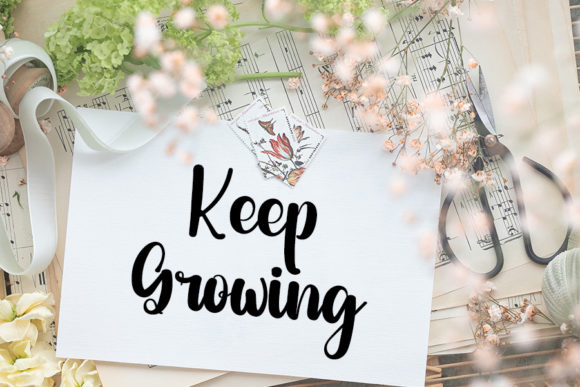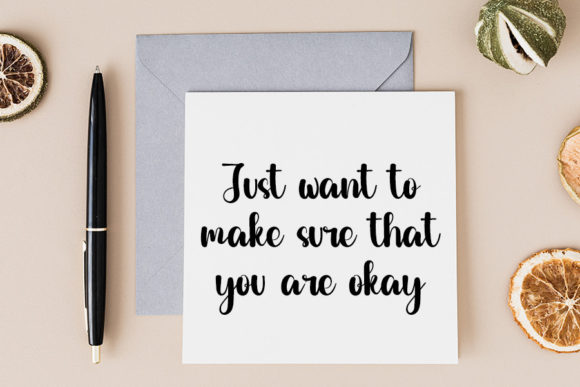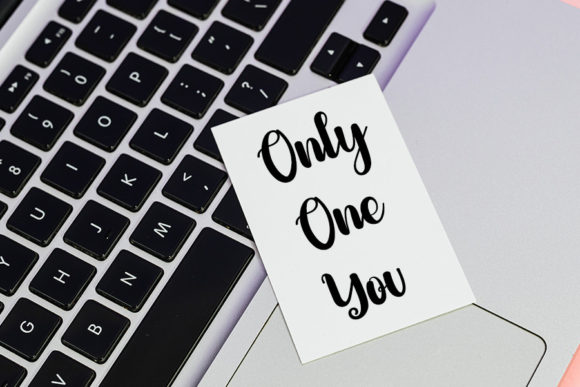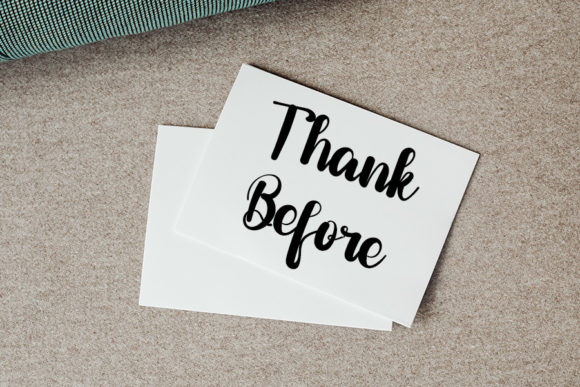
Discover the Charm of Animal Journeys Font: Elevate Your Designs with Elegance
Are you on the hunt for a font that can add a touch of sophistication and whimsy to your designs? Look no further than the Animal Journeys Font. This beautiful, handwritten font is designed to make your work stand out from the crowd with its elegant and curvy lines. Whether you’re working on product packaging, branding projects, magazine covers, social media graphics, or wedding designs, Animal Journeys is the perfect choice to elevate your creations.
The Characteristics of Animal Journeys Font
Animal Journeys Font is a lovely handwritten font that boasts a range of characteristics that make it perfect for designers and crafters. Its elegant and curvy lines give it a unique and sophisticated feel that’s sure to capture the attention of your audience. The font is highly versatile, making it suitable for a wide range of design projects.
One of the standout features of Animal Journeys Font is its versatility. It’s perfect for a variety of design projects, including:
- Product Packaging: Add a touch of elegance to your product packaging with Animal Journeys Font. Whether you’re designing labels, tags, or packaging materials, this font is sure to make your products stand out.
- Branding Projects: Create a cohesive brand identity with Animal Journeys Font. Use it for logos, business cards, and other branding materials to give your brand a sophisticated and whimsical feel.
- Magazine Covers: Make your magazine covers pop with Animal Journeys Font. This font is perfect for creating eye-catching headlines and titles that will draw readers in.
- Social Media: Elevate your social media graphics with Animal Journeys Font. Use it to create engaging and shareable content that will help you connect with your audience.
- Wedding Designs: Make your wedding designs truly special with Animal Journeys Font. Use it for wedding invitations, programs, and other stationery to create a romantic and elegant feel.
Why Choose Animal Journeys Font?
So why choose Animal Journeys Font for your design projects? Here are just a few reasons:
- Unique and Elegant: Animal Journeys Font is a unique and elegant font that’s sure to make your designs stand out from the crowd.
- Highly Versatile: This font is highly versatile, making it suitable for a wide range of design projects.
- Easy to Read: Despite its elegant and curvy lines, Animal Journeys Font is easy to read, making it perfect for body text and headlines.
- Great for Expressing Words: Animal Journeys Font is perfect for expressing words above a background, making it a great choice for designers who want to add a touch of personality to their designs.
Tips for Using Animal Journeys Font
Here are a few tips for using Animal Journeys Font in your design projects:
- Pair it with Other Fonts: Animal Journeys Font pairs well with other fonts, so don’t be afraid to experiment with different combinations.
- Use it for Headlines: Animal Journeys Font is perfect for headlines and titles, so use it to create eye-catching graphics.
- Experiment with Colors: Animal Journeys Font looks great in a range of colors, so experiment with different colors to find the perfect look for your design.
In conclusion, Animal Journeys Font is a beautiful and versatile font that’s perfect for designers and crafters. Its elegant and curvy lines make it a great choice for a wide range of design projects, from product packaging to wedding designs. With its unique and sophisticated feel, Animal Journeys Font is sure to elevate your designs and make them stand out from the crowd.